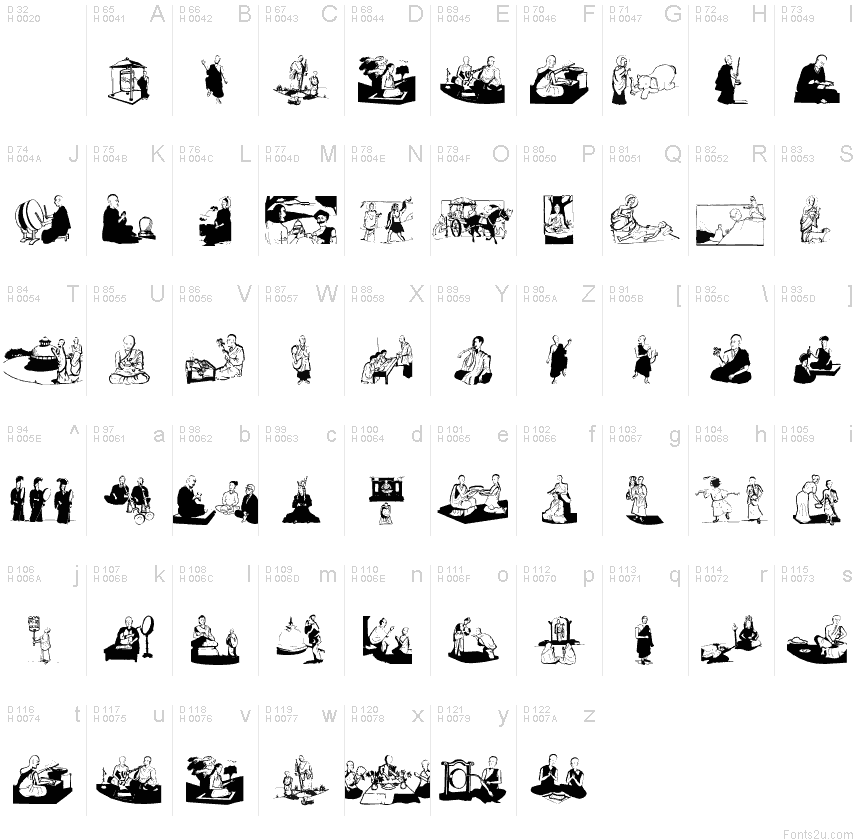
Buddhism by Manfred Klein is a free Buddhist figure dingbat font drawn in a lively cartoon style. The symbols depict robed monks, seated teachers, shrine-like displays, and gesturing figures. Loose outlines and solid ink give the set a brisk, hand-drawn quality.
These narrative scenes can merge with illustration in educational publishing and museum graphics. They also suit meditation retreat materials and cultural event posters, where the informal drawing softens a serious subject. Across these uses, human activity and recognizable Buddhist imagery provide the common thread.